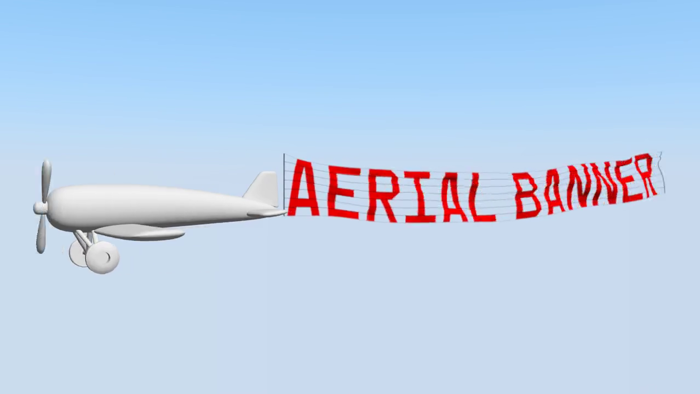
Aerial Banner Font
The font that monetized the skies.
I took some pictures of banners and remade them in Fontstruct, and fixed what I had trouble with in FontForge. There are two variants for each letter and number so If it looks off, try typing it in the other case.